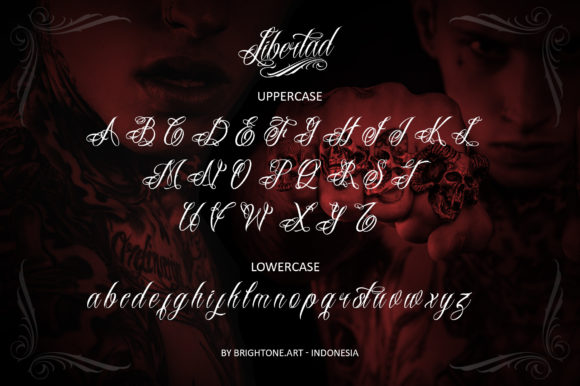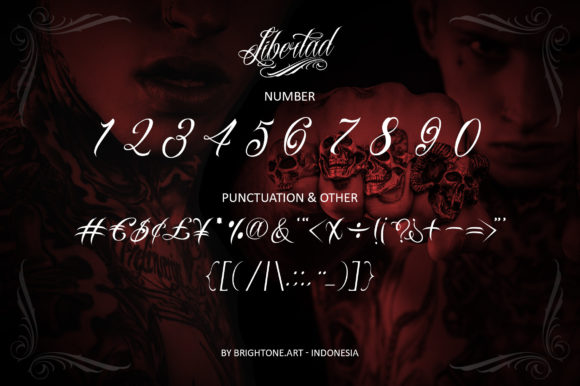
Libertad Font
db-ku.com - Script & Handwritten -- Libertad is an exquisite and distinct handwritten font, masterfully designed to become a true favorite. It maintains its classy calligraphic influences while feeling contemporary and fresh. Fall in love with it and bring your tattoo designs to the highest levels!